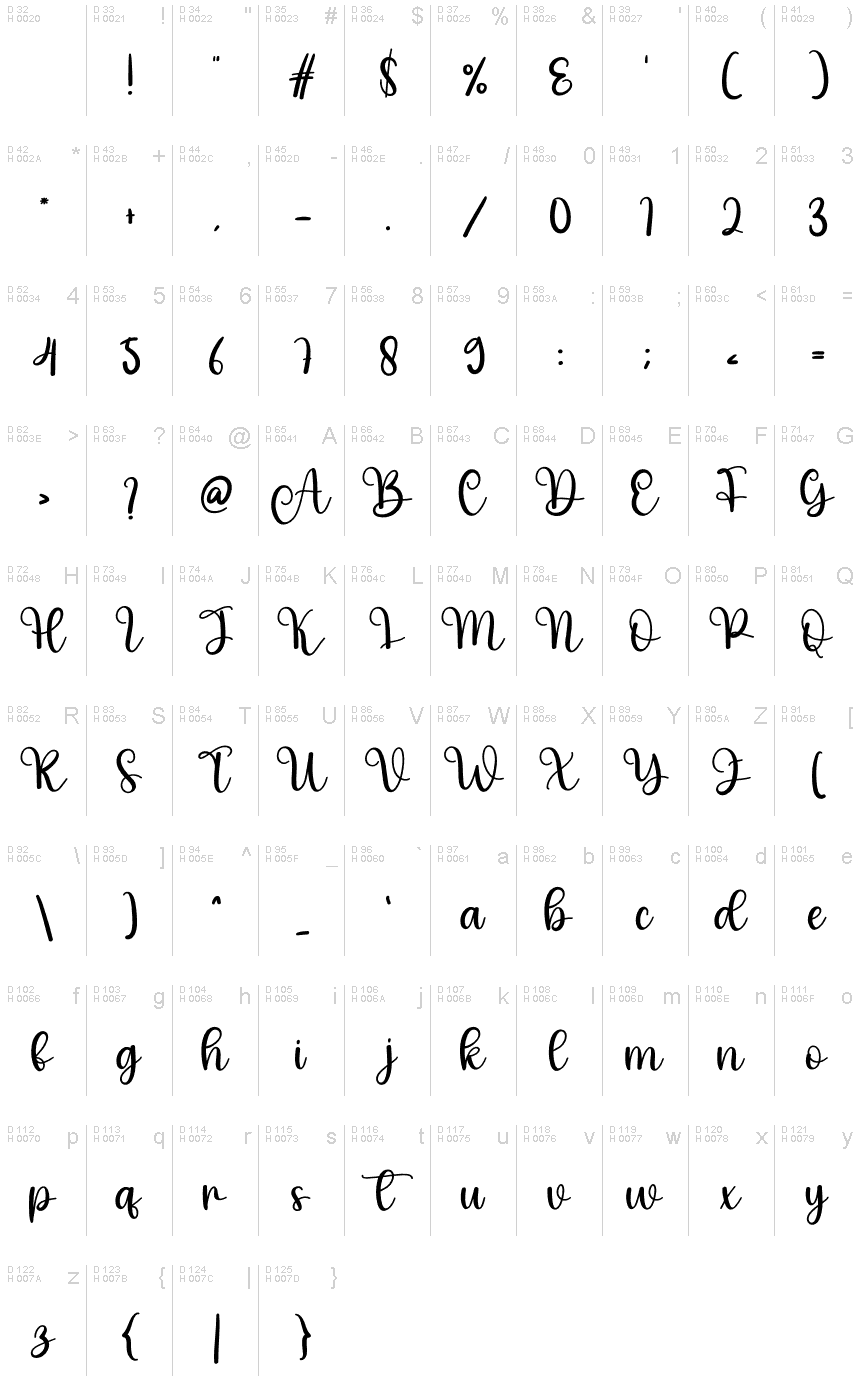
Welcome Valentine
Welcome Valentine is a stunning calligraphy font designed by scratchones. Its semi-light weight creates an elegant and sophisticated look that is perfect for wedding invitations, love letters, and romantic designs. The graceful curves of the letters add a personal touch to any project, making it ideal for personalized gifts or special occasions. Welcome Valentine's exquisite calligraphic style exudes a classic charm that can elevate any design to the next level. Whether you're working on branding, packaging, or digital designs, this font will be sure to captivate your audience with its charming beauty. Give your projects a touch of romance with Welcome Valentine!
the latest style letters are perfect for wall displays, wedding invitations, social media post logos,
advertisements, product packaging, product designs, labels, photography, watermarks, invitations, stationery,
and any project that requires taste handwriting.